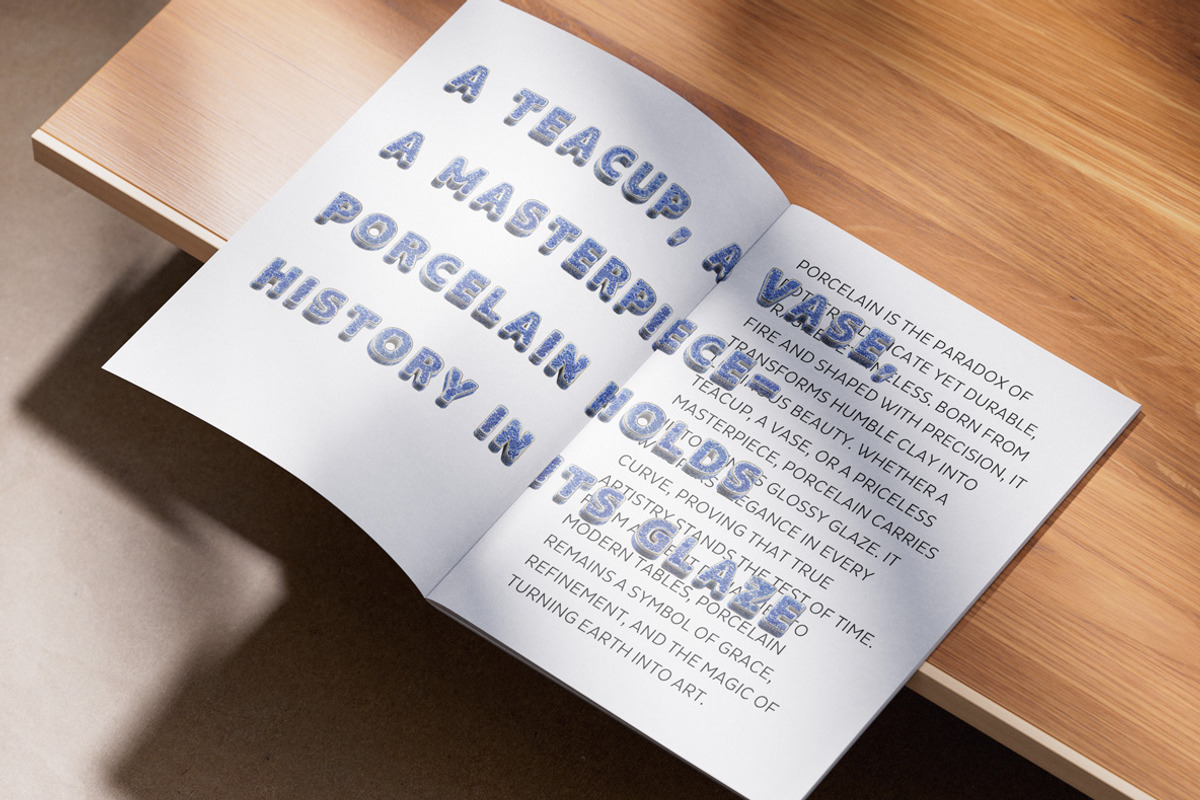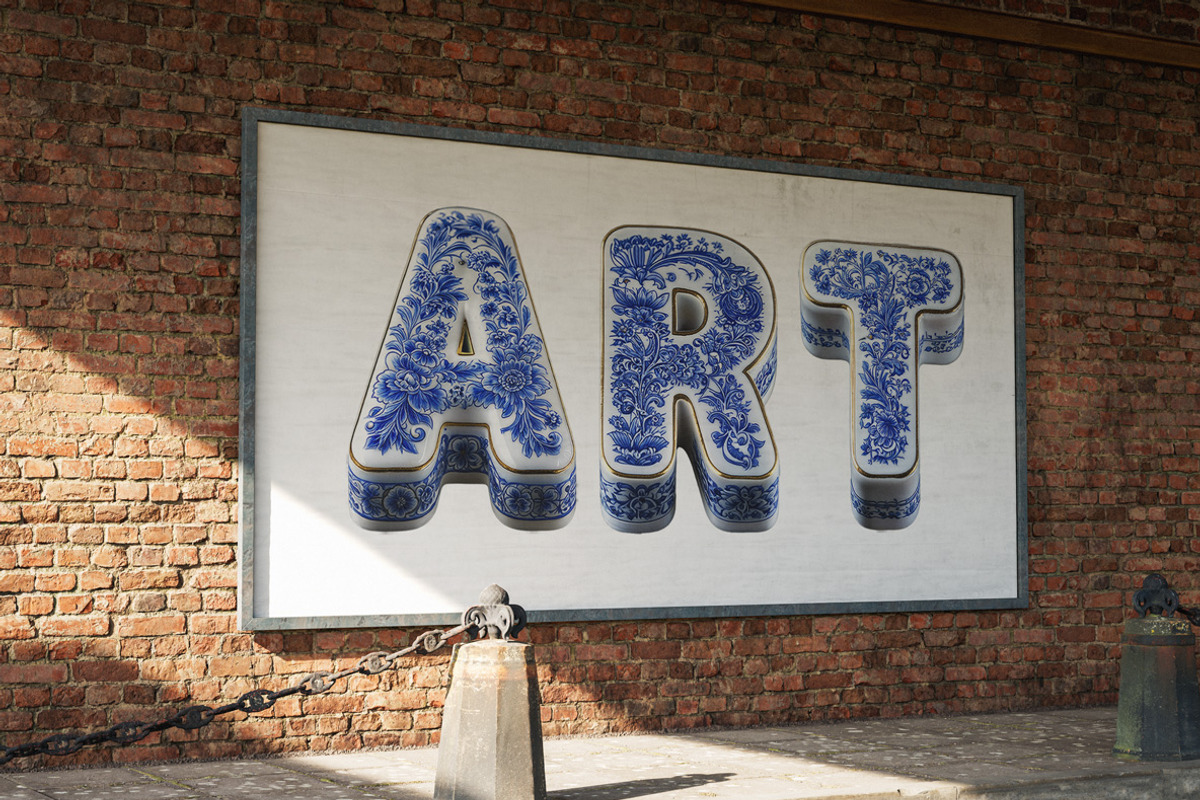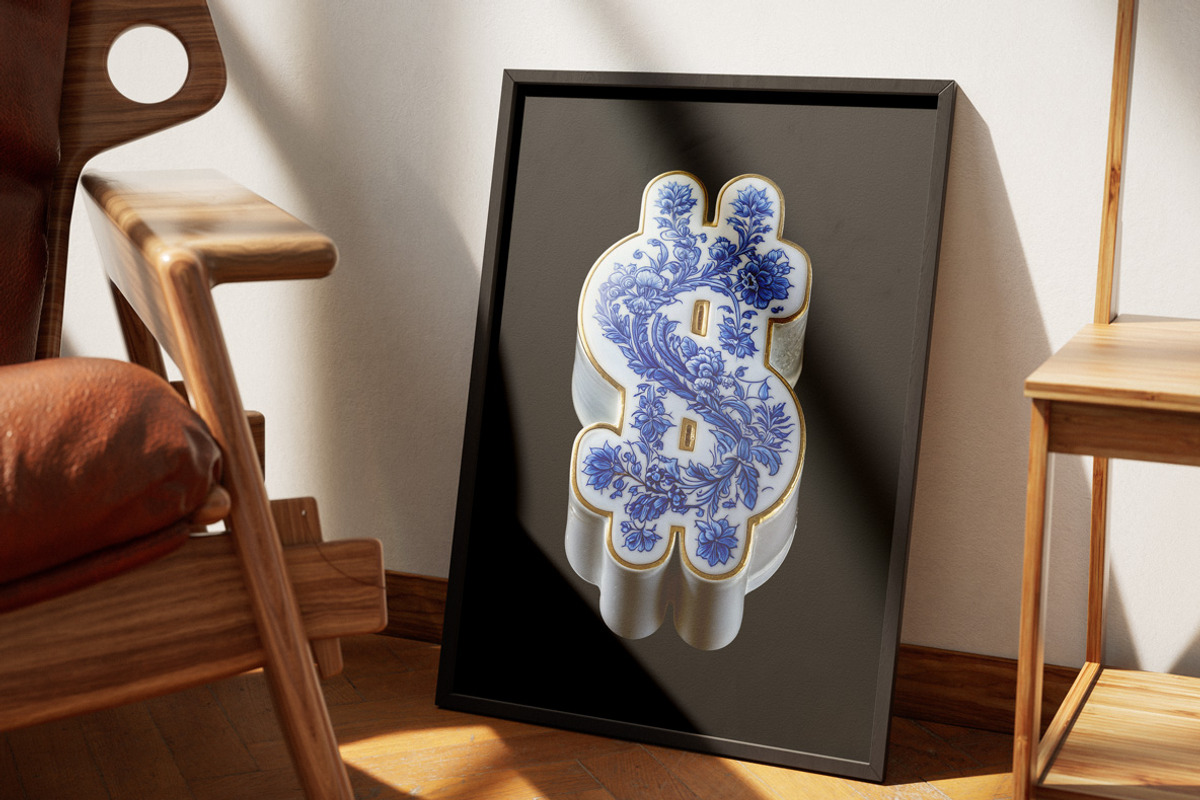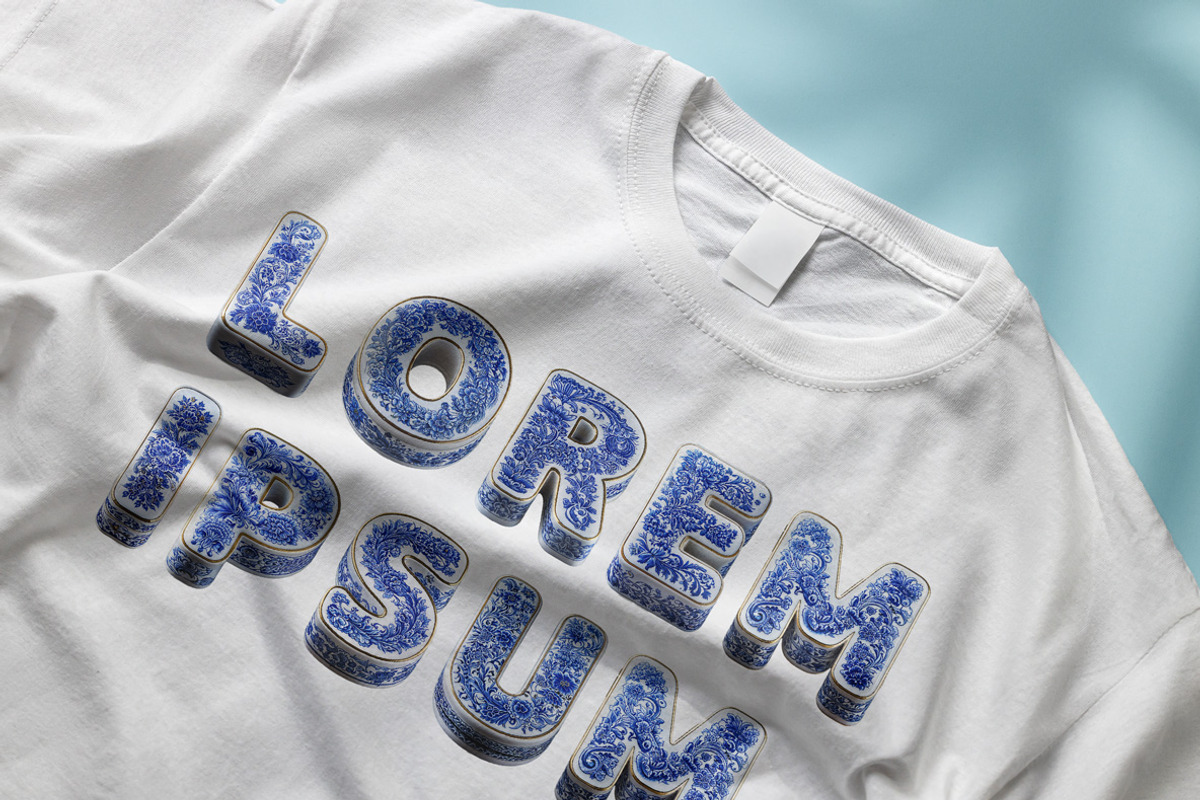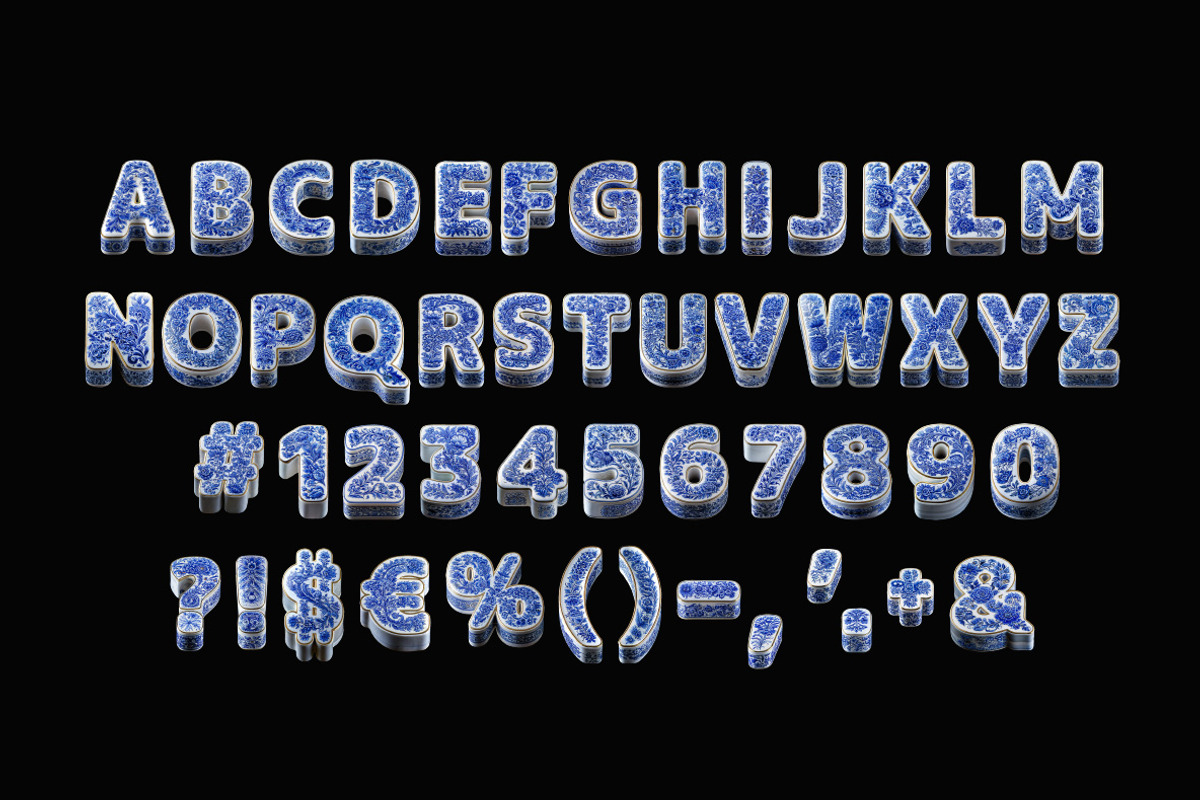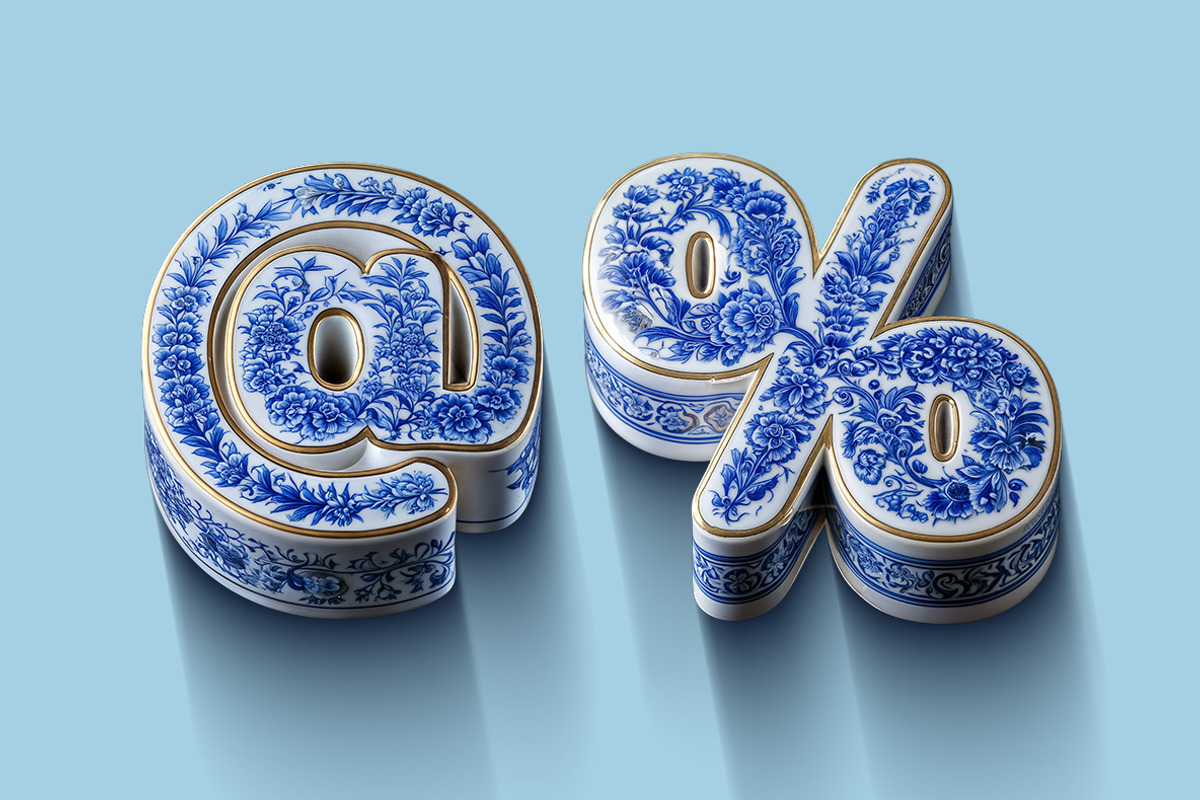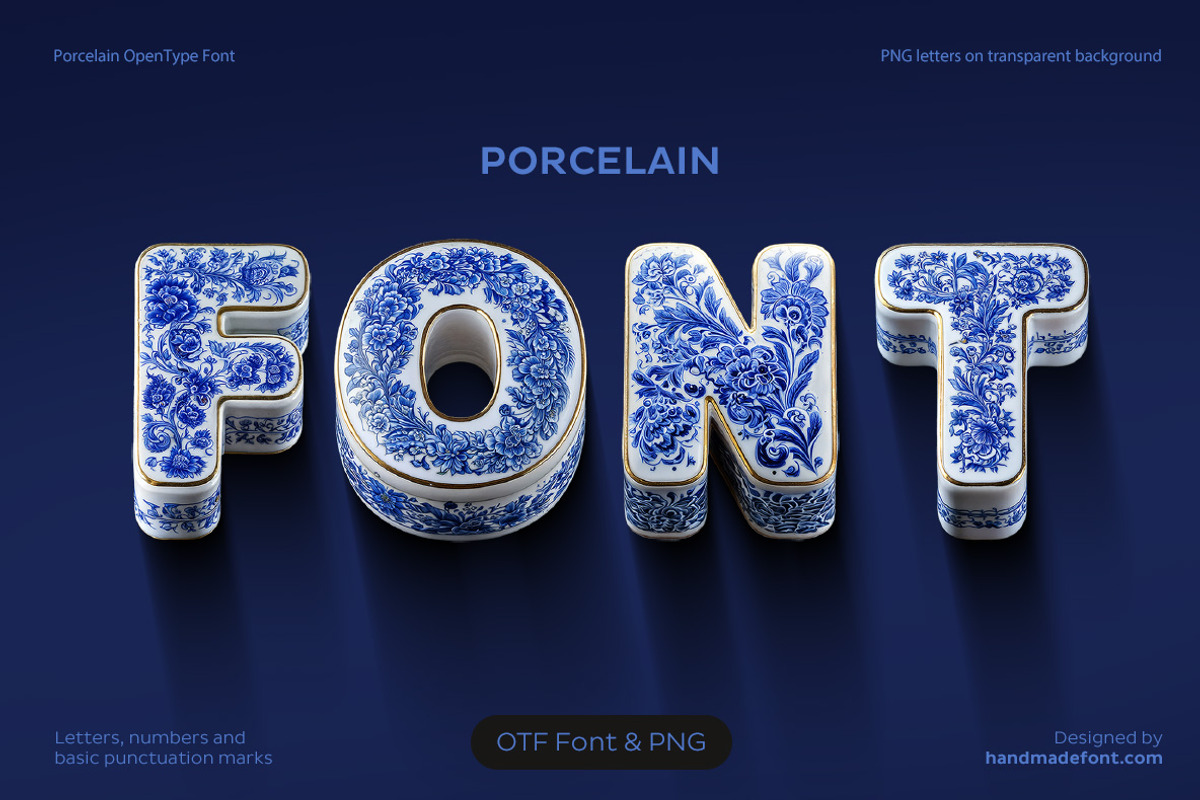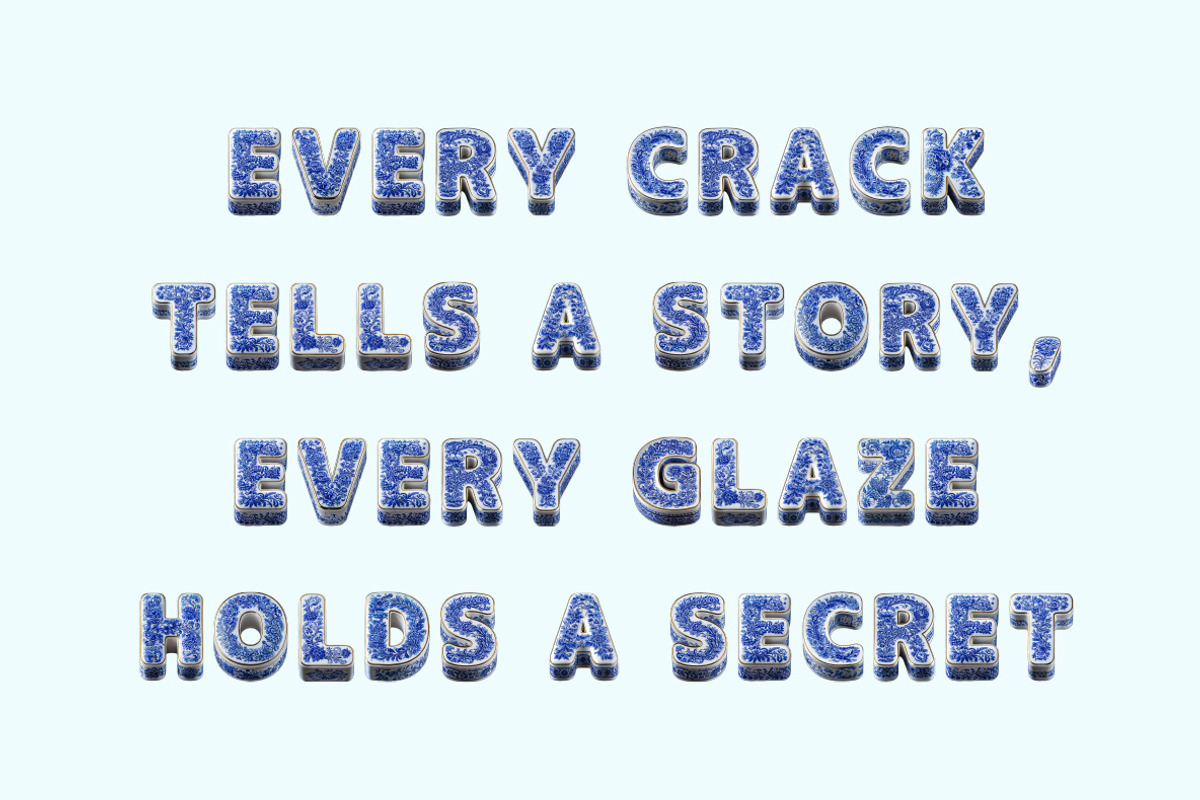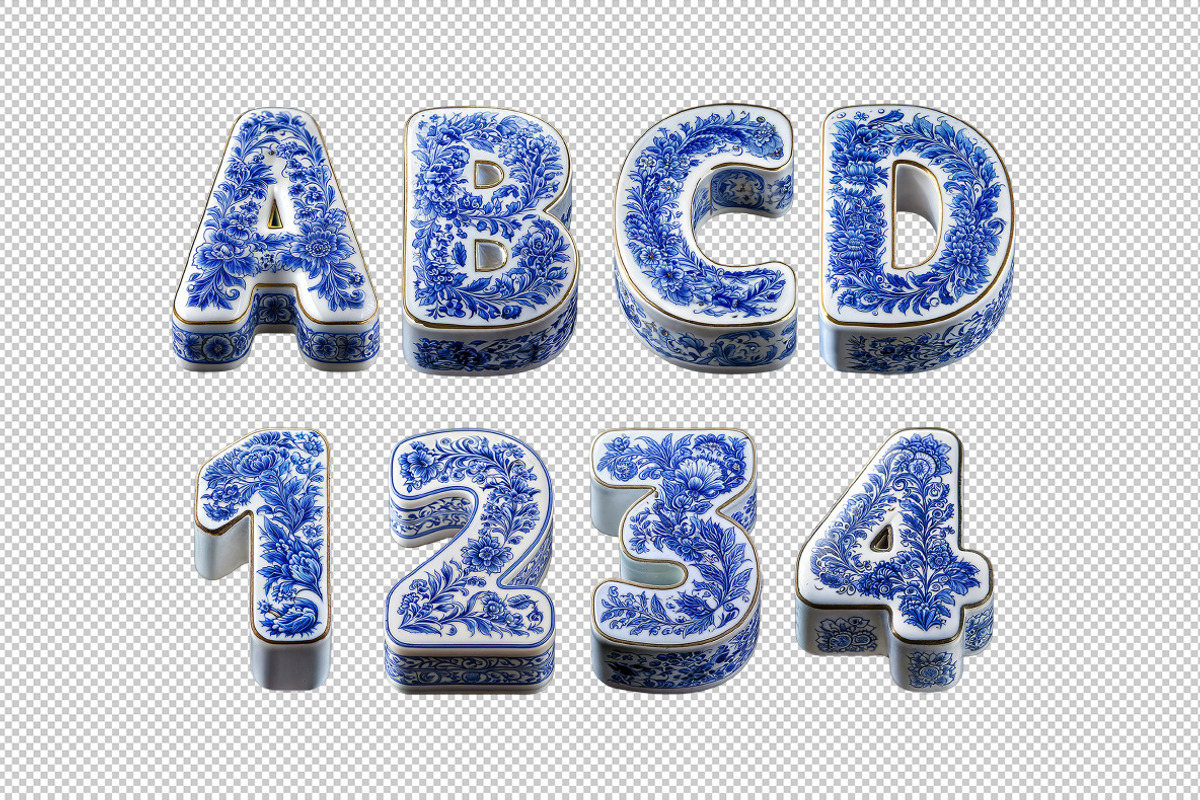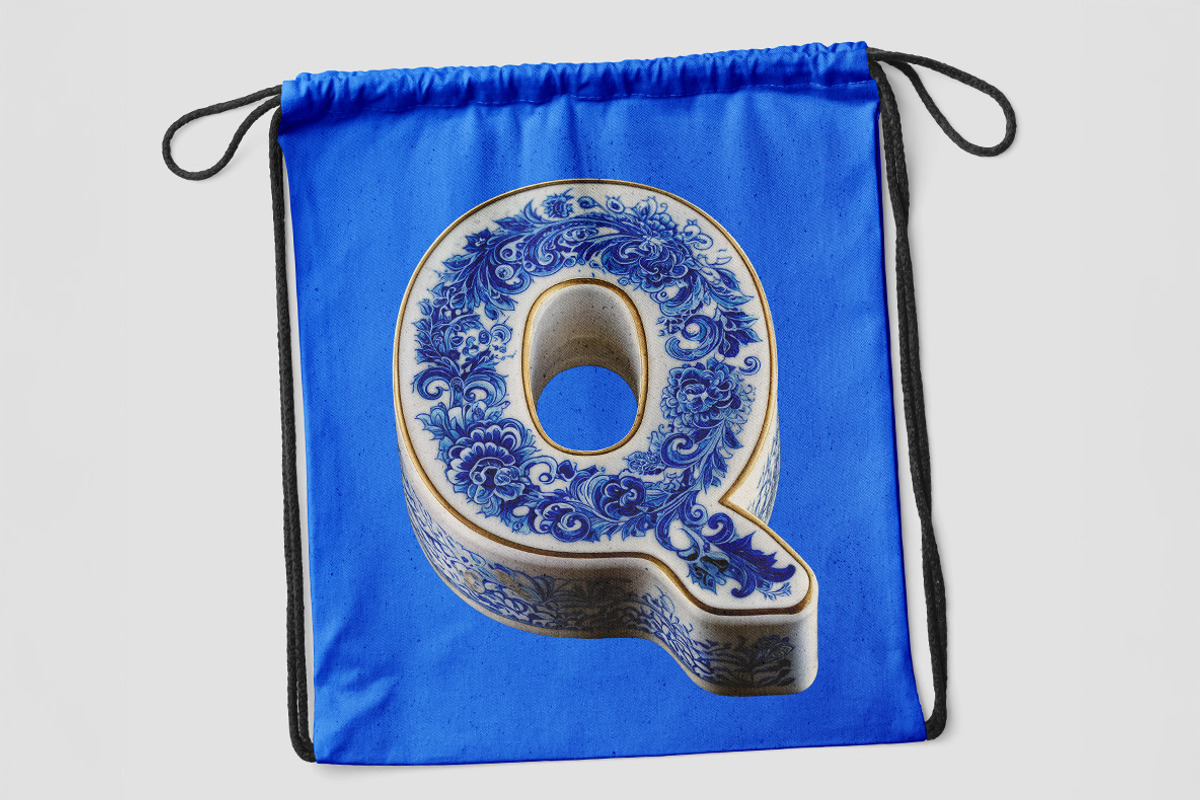
Porcelain Font
Floral and fabulous, the Porcelain Font is what happens when your grandma’s fine china learns to spell! Each letter is a delicate masterpiece, drenched in intricate blue floral patterns that would make even a teapot jealous. Inspired by vintage porcelain typography, it swirls with classic Delftware charm and the elegance of fine ceramic lettering. The dainty gold trim whispers, “Handle with care… or don’t, I’m just a font!” Whether you're crafting a regal invitation or just want your words to look traditionally fancy, this porcelain-inspired font is pure decorative delight—no dishwashing required!